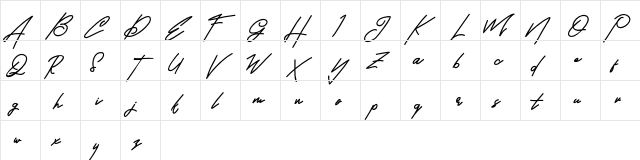
BrandHole FREE Regular Font Preview
BrandHole FREE Regular
BrandHole FREE Regular Font Details
Design Context for BrandHole FREE Typeface
BrandHole FREE is a composed and adaptable typeface that performs quietly and consistently across a wide range of design contexts.